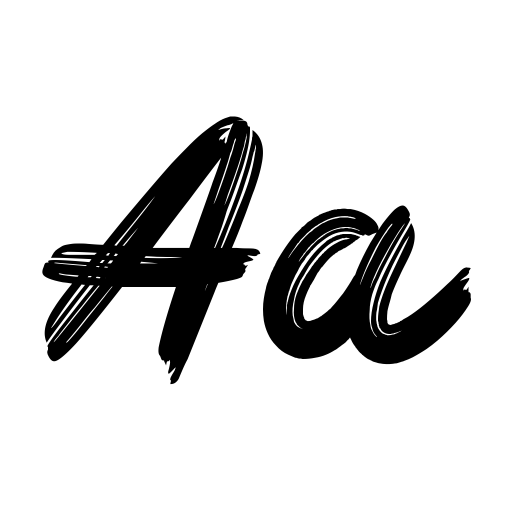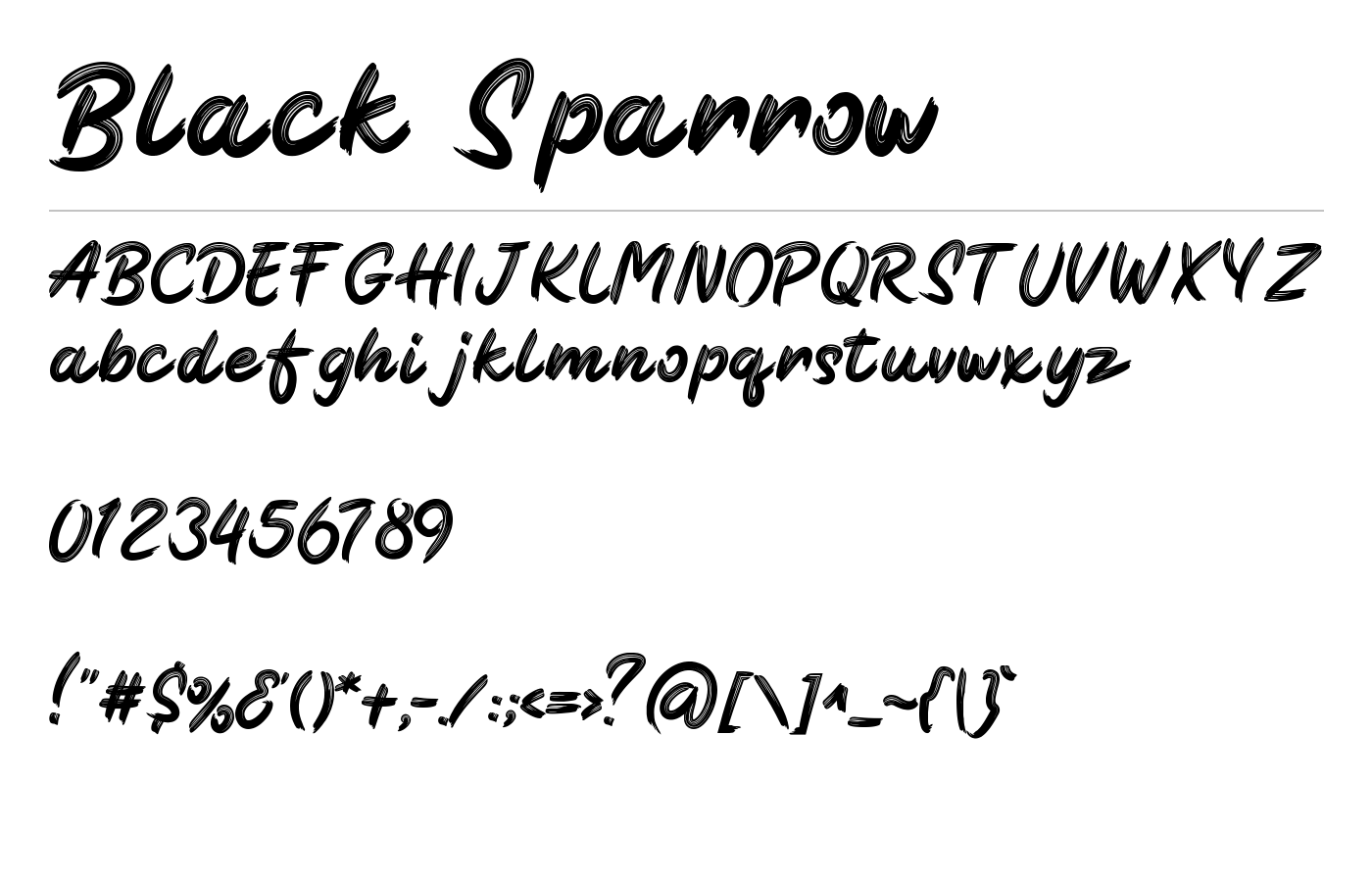
Black Sparrow is a bold, brush script font with a lively and informal character, featuring dynamic strokes that mimic hand-painted lettering. Its slightly condensed letterforms with moderate contrast and casual style make it perfect for eye-catching headlines, logos, and creative branding projects that want to convey energy and personality. This font works well in designs that aim for a fun, artistic, or youthful vibe, adding a human touch and vibrant flair.
Black Sparrow Font